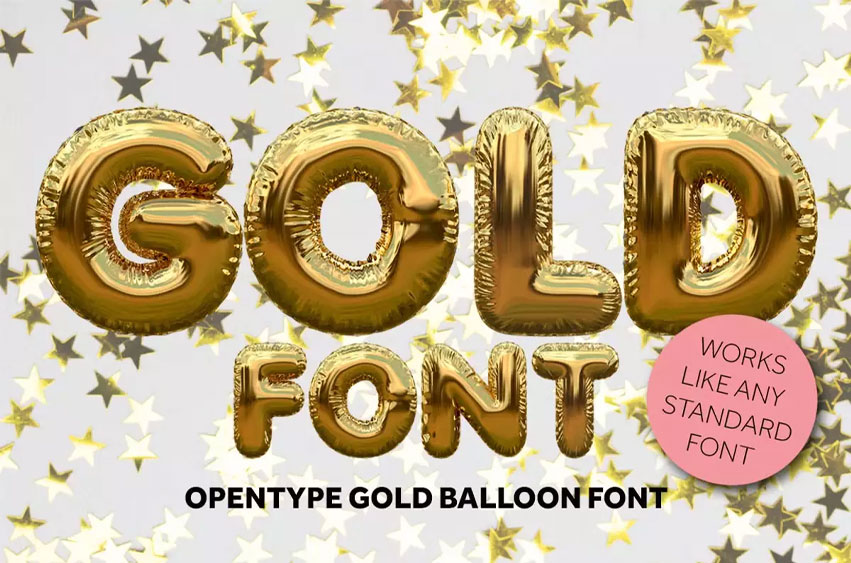
Gold Font
Gold Font an OTF font with a lustrous color gold, gives your design an effect of shiny gold. Each letter is carefully made in 3D and turned into a font that is easy to use. Just click and you can already type your text to have it embellished with cute gold balloon letters.
Perfect for creating calls, posters, and any type of design project if you want to give it a touch of nobility and luxury. Let Gold Foil be the one that will add the spark to your projects with its unique beauty.